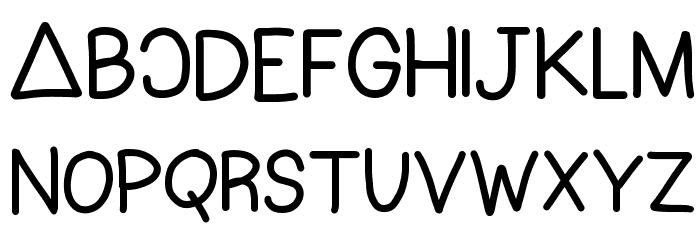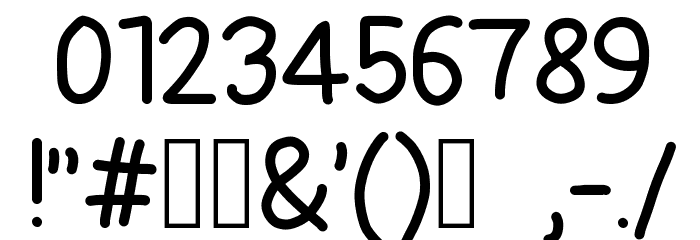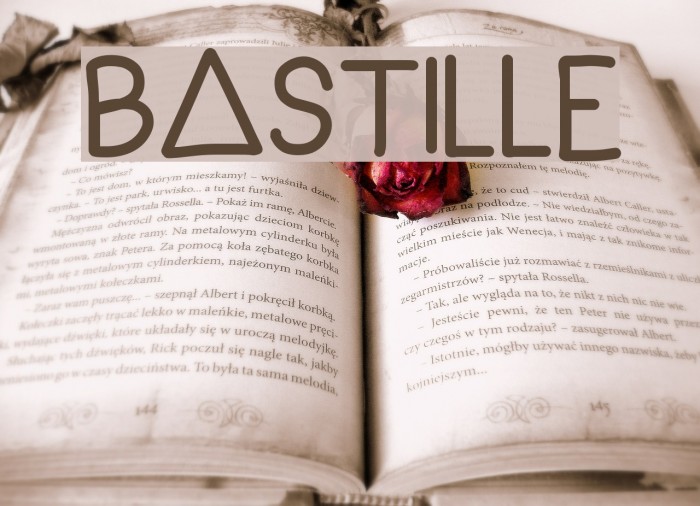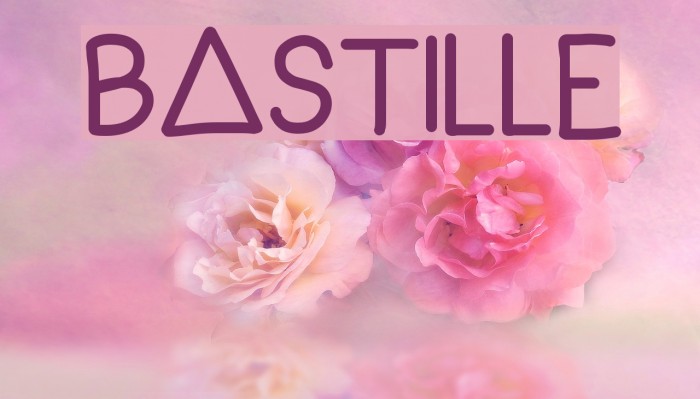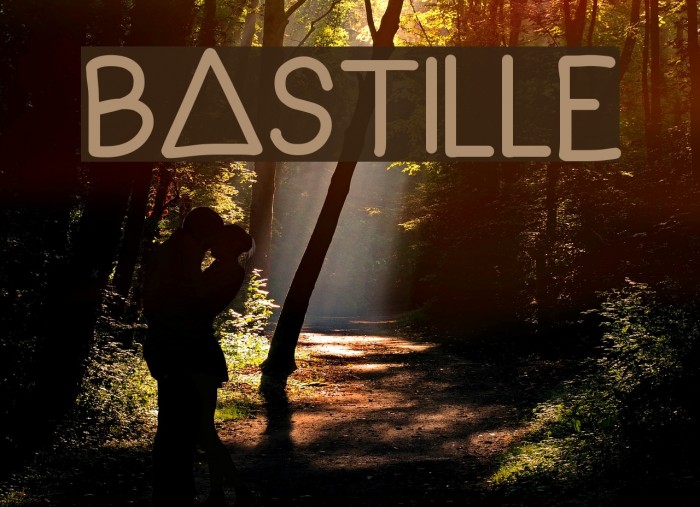
BASTILLE Font
This font features a playful and rounded style, characterized by its smooth curves and consistent stroke width. The letters have a whimsical appearance, with a slight tilt that adds a dynamic feel. The uppercase letters are bold and prominent, while the lowercase letters maintain the same playful quality. The numbers are clear and legible, matching the overall style of the alphabet. Special characters are included, maintaining the same rounded and friendly aesthetic. This font is suitable for projects that require a fun and approachable look.
A playful, rounded font with smooth curves and consistent stroke width.
- Proposed Projects: Ideal for children's books, playful branding, casual invitations, and creative posters.
- Overall Style: Playful, Whimsical